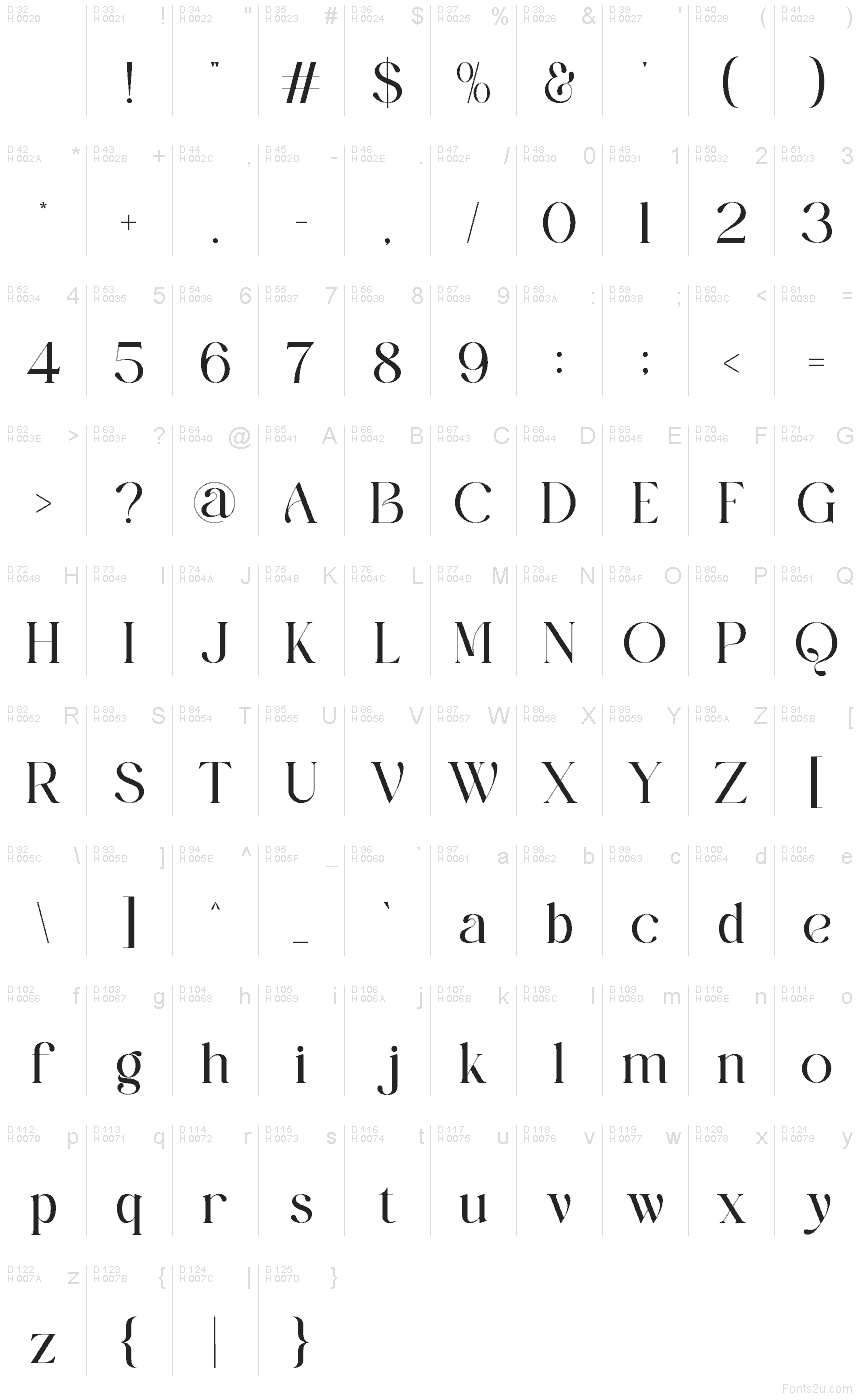
Rolena Regular
Rolena font by Ermedia Studio is a free vintage serif font that wears its contrast proudly. Thick, velvety stems meet razor-thin hairlines, while the curves feel hand-inked—sleek, but not slick. Those sculpted cuts and sweeping arcs create a luxurious rhythm that reads as high-end without going cold, giving headlines a confident, editorial snap.
Using Rolena, you get a display voice that shines on boutique branding, cosmetics logos, packaging labels, magazine covers, wedding invitations, posters, and refined menu design. The spacing invites generous sizing, so let it breathe big. Pair this free font with a quiet modern sans—think a clean grotesk—to keep the spotlight on Rolena’s sculpted drama.